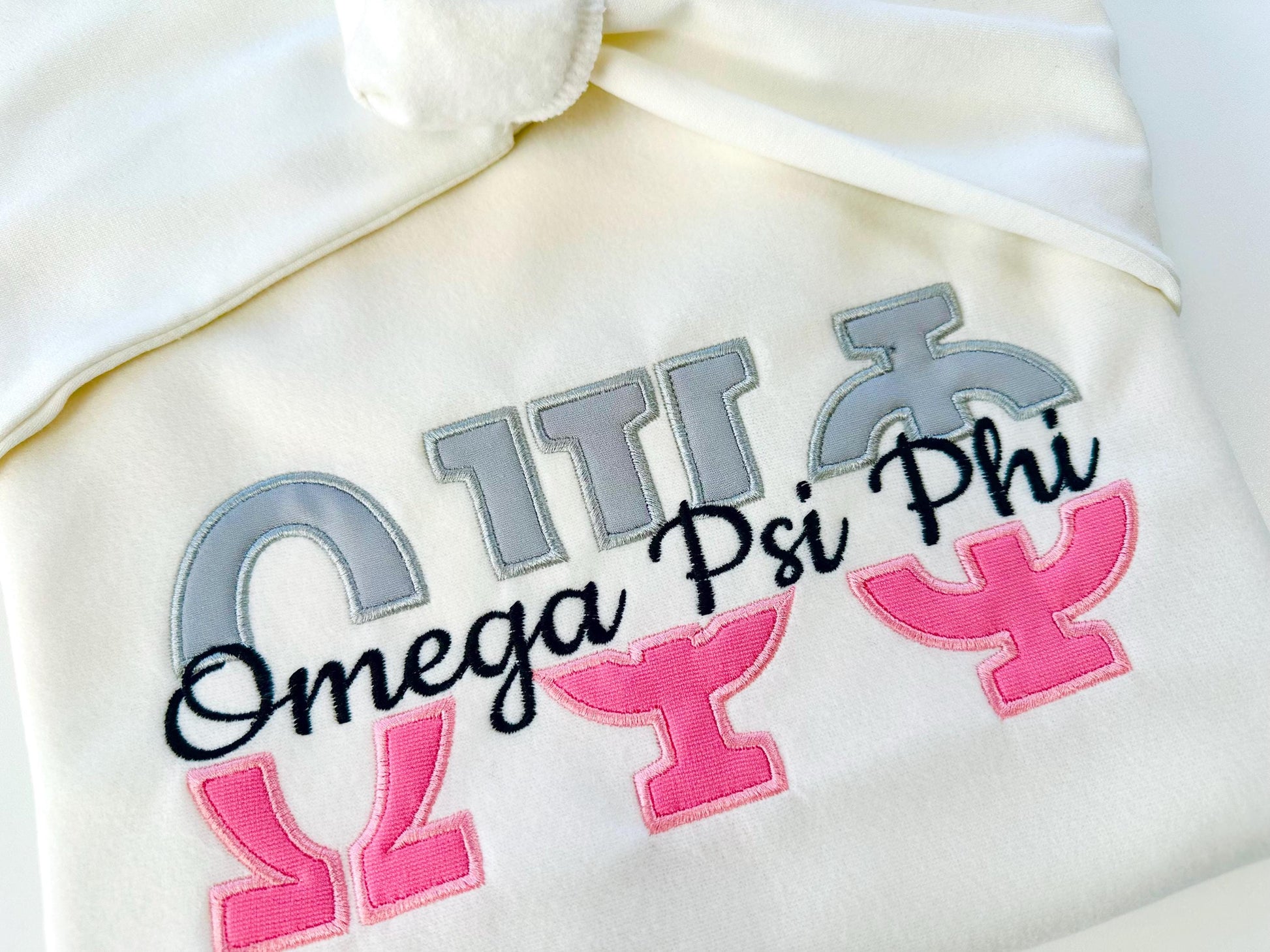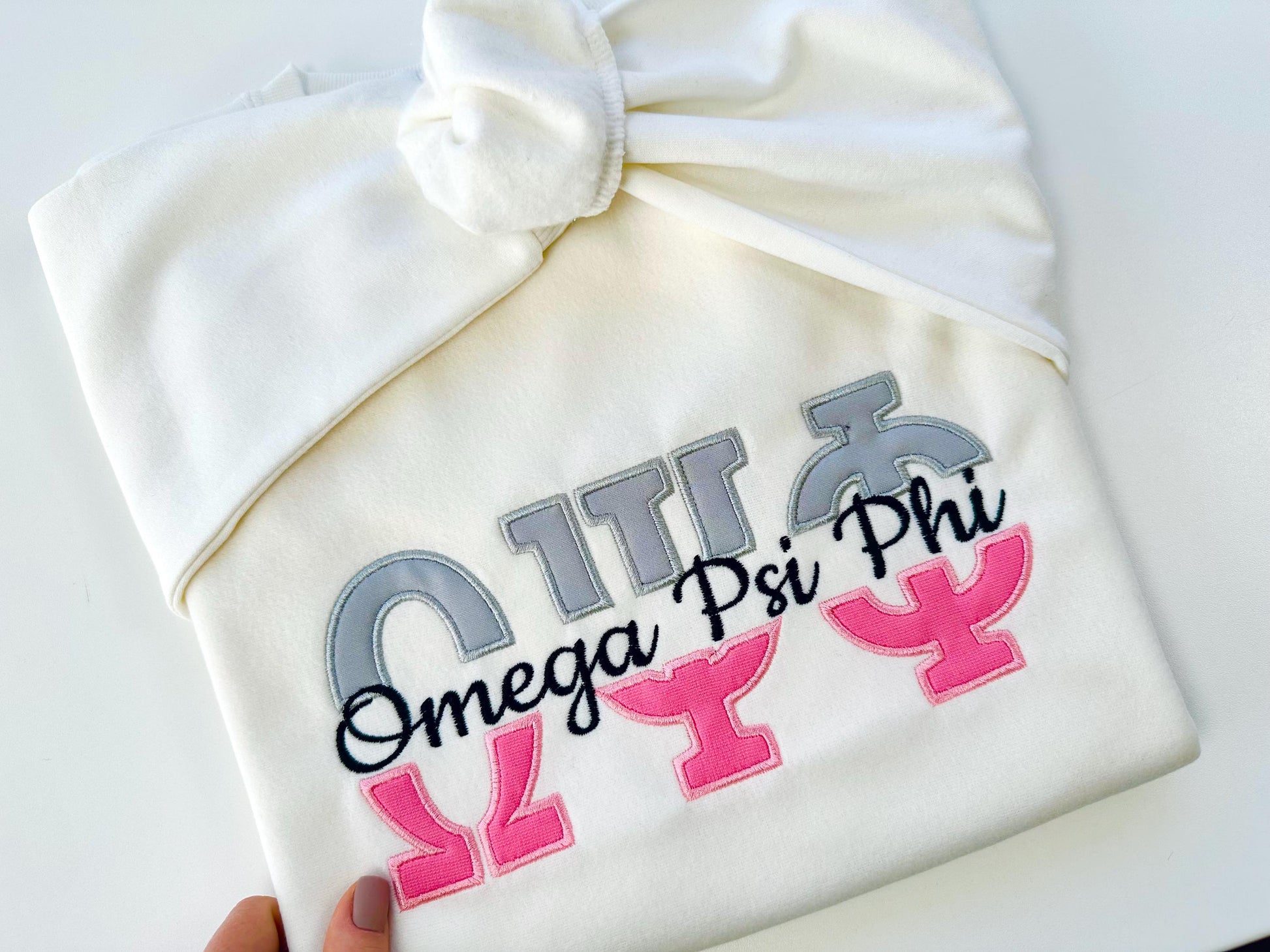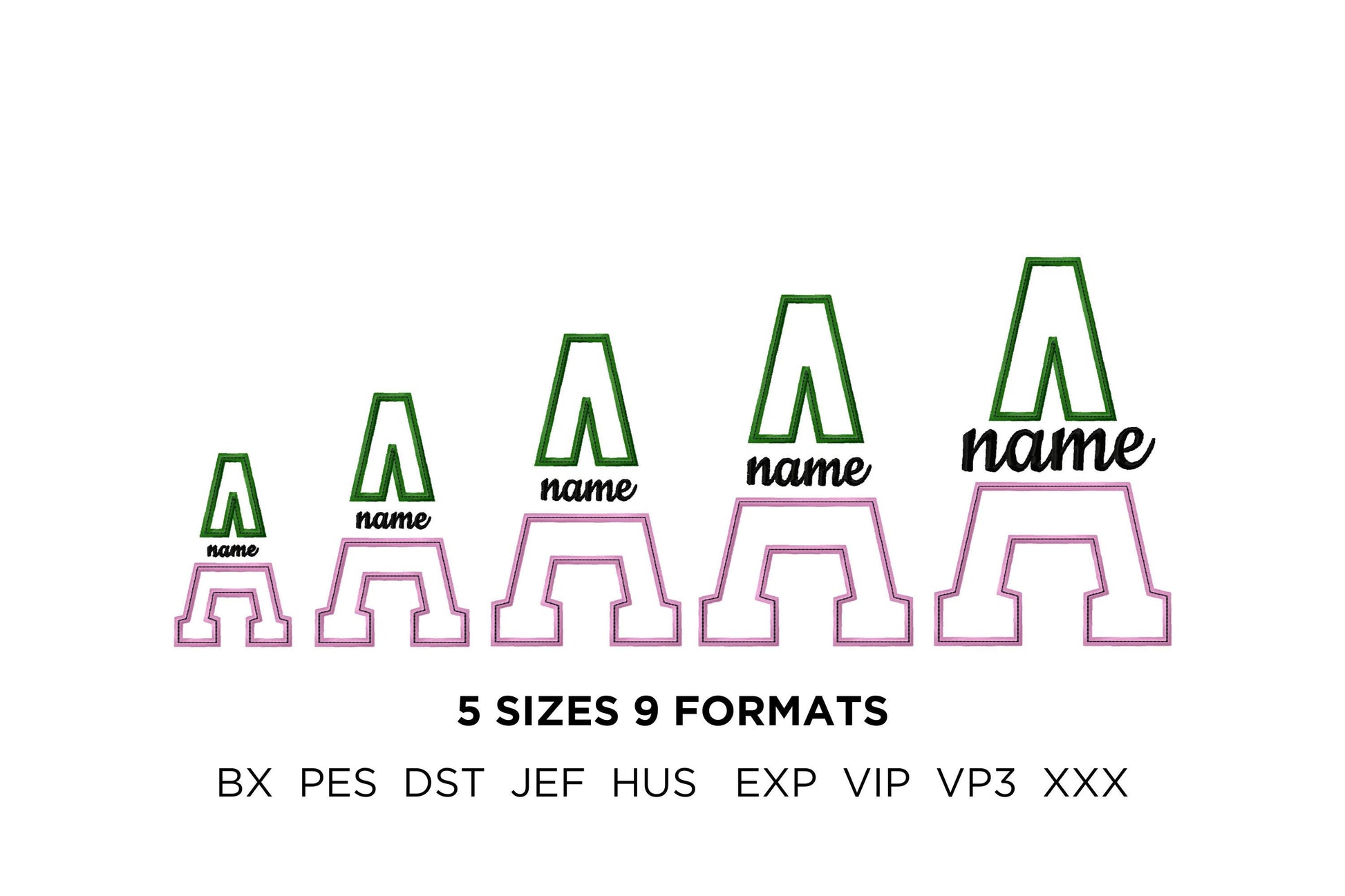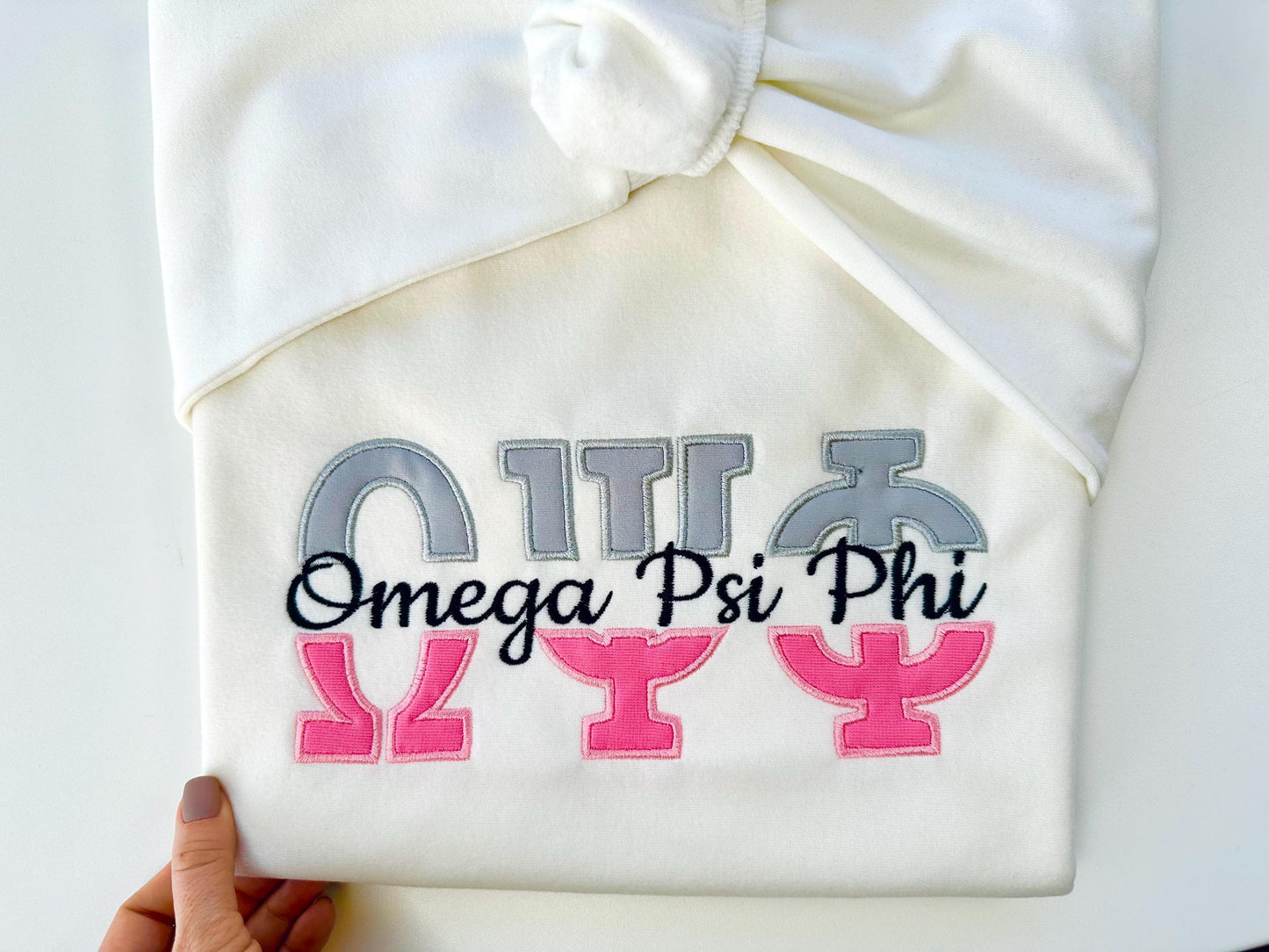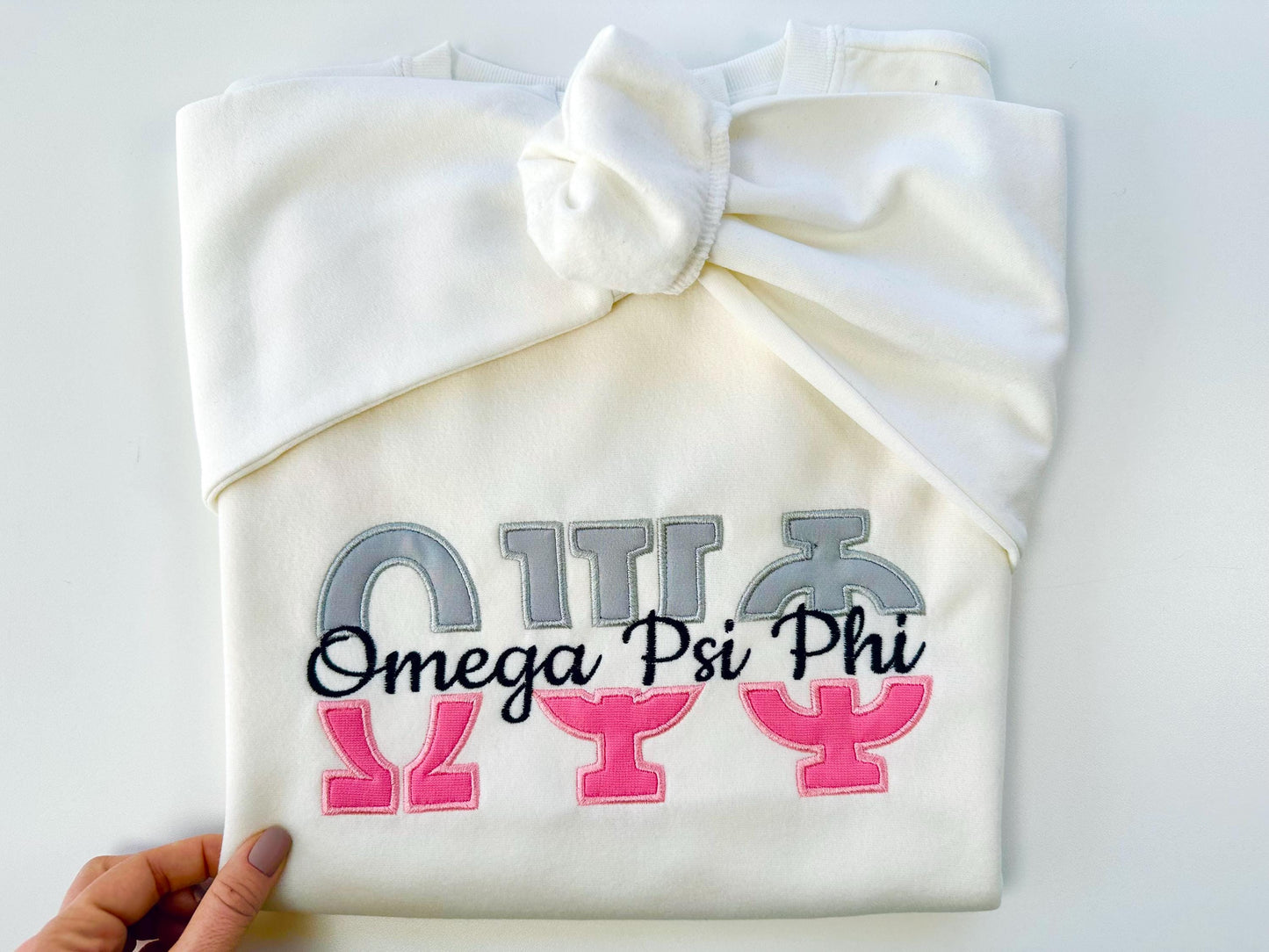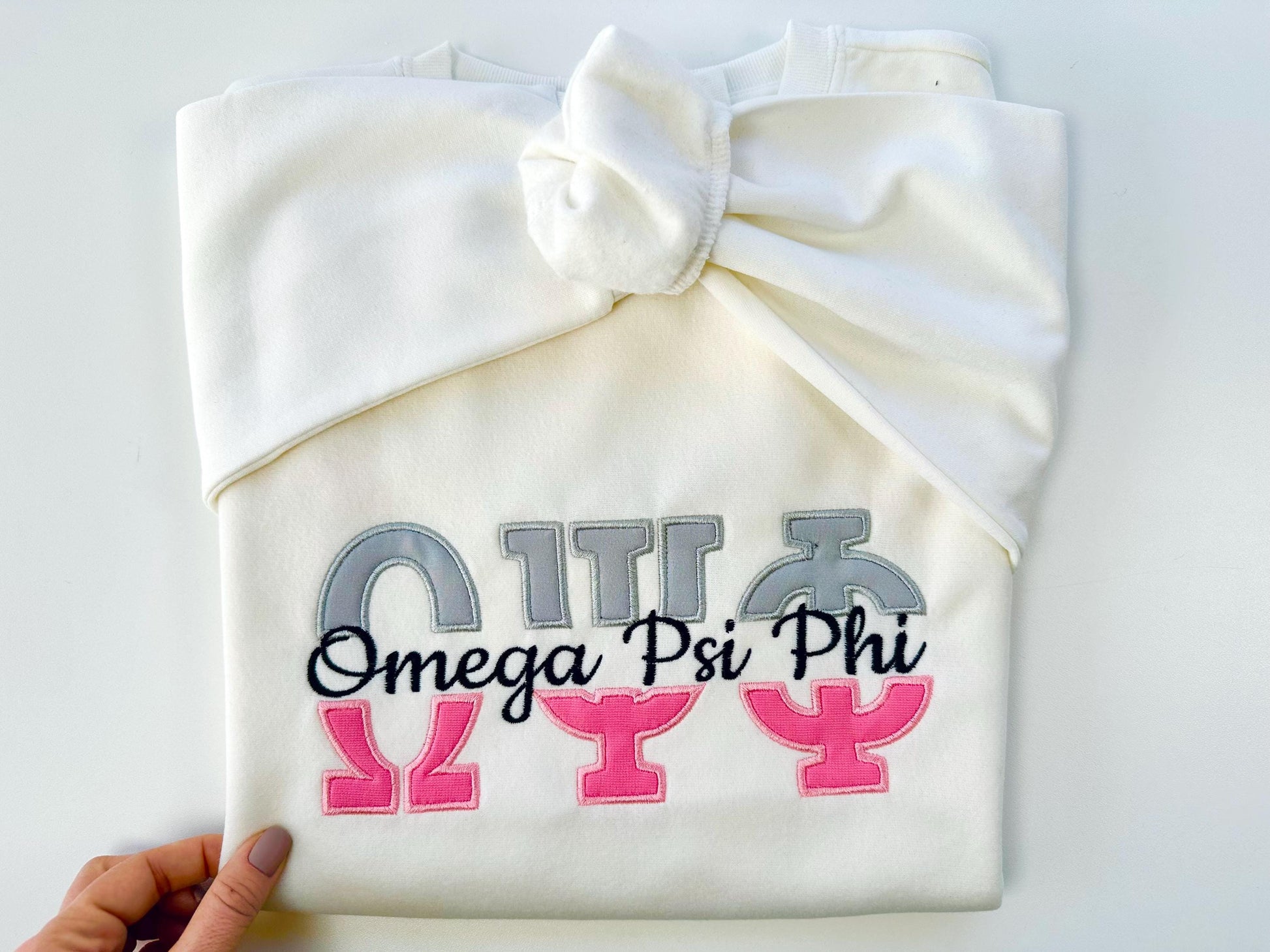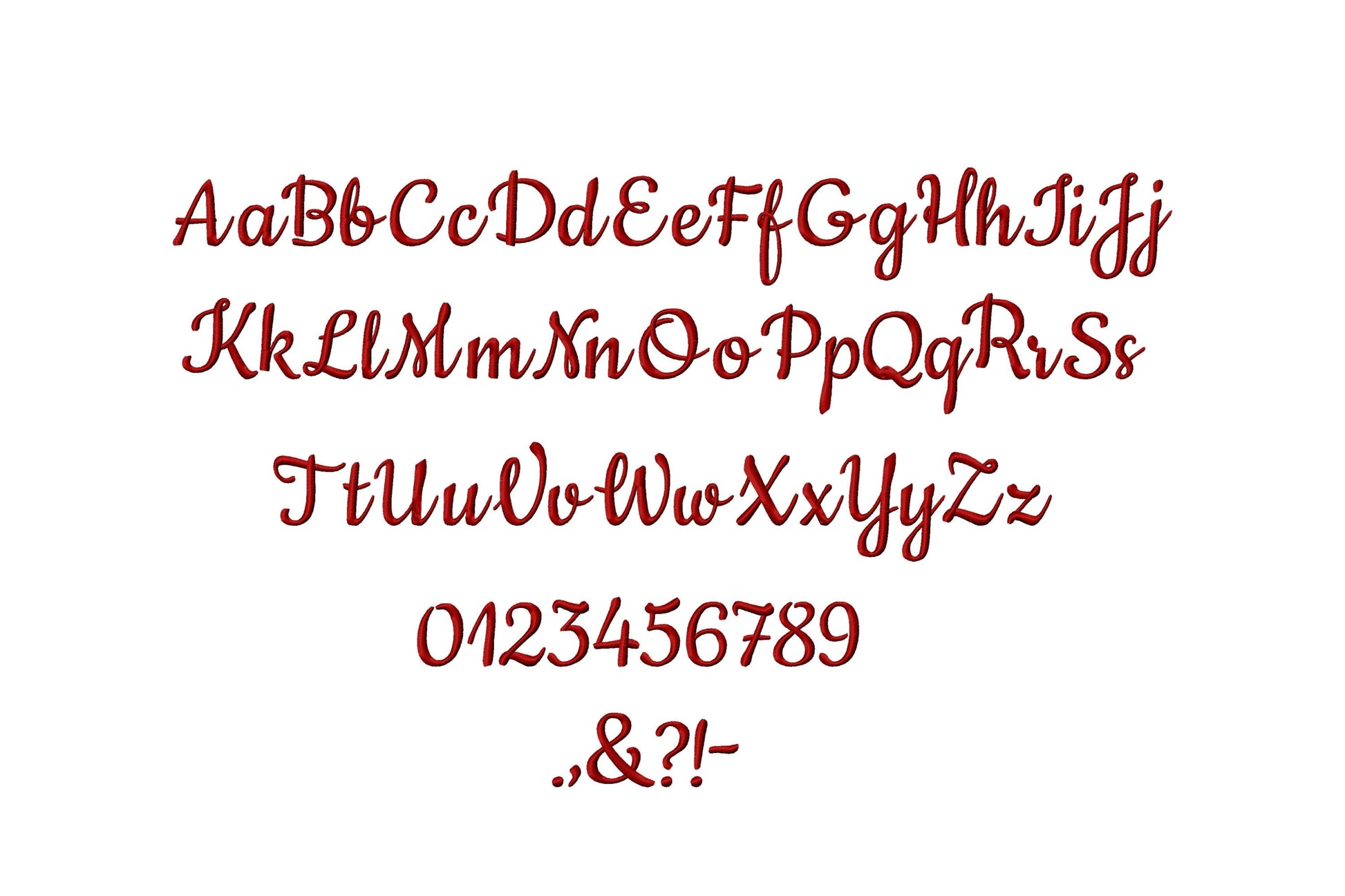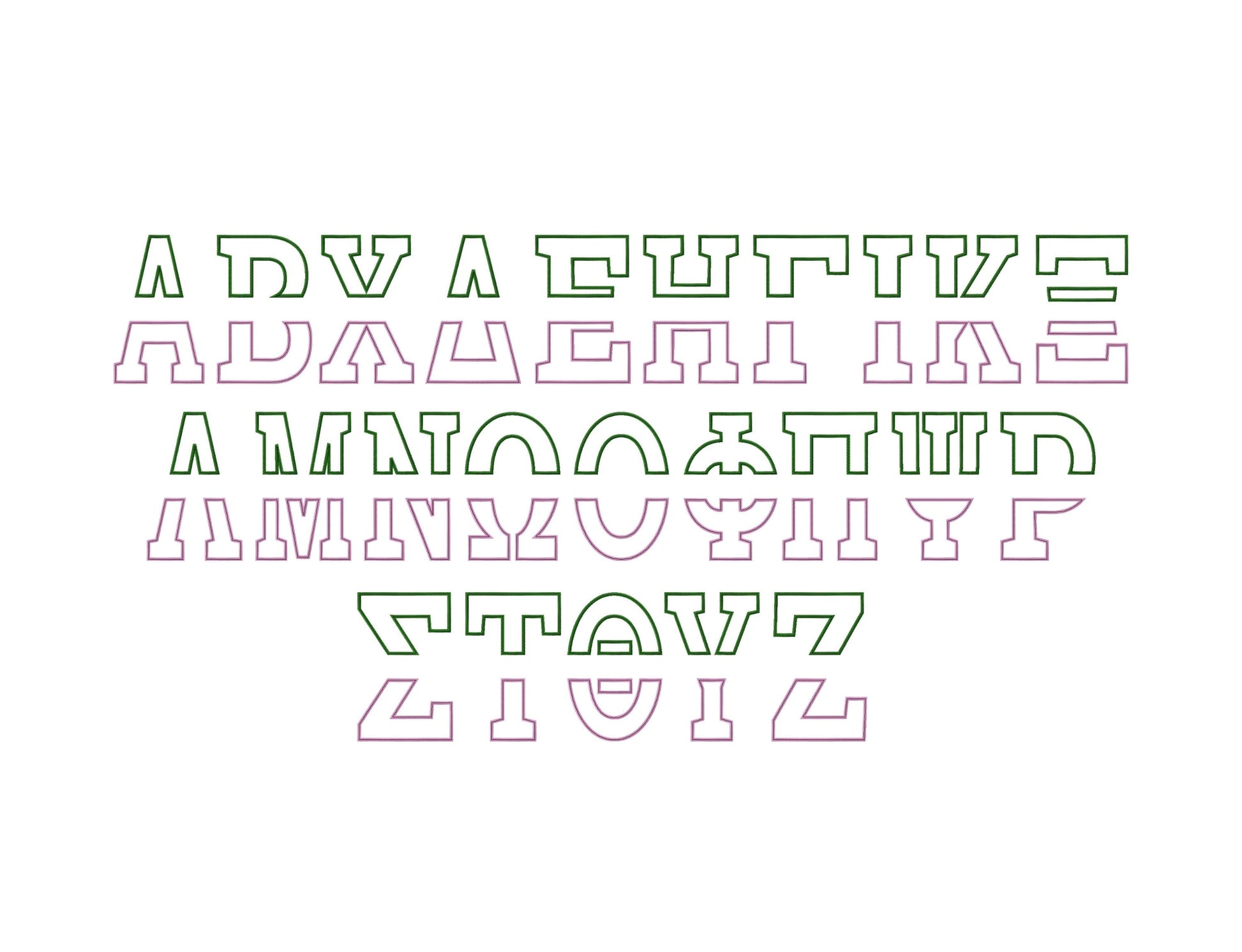
Or click to open the linkA set of two fonts: big split Greek applique letters and a small satin stitch script. Made for sorority and fraternity shirts, jackets, bags and pillows.
The split Greek font has uppercase Greek letters in five sizes: 4, 5, 6, 7 and 8 inches; the top and bottom are separate, so you can set the gap in the middle. The mini satin script has uppercase and lowercase letters, numbers and punctuation in seven sizes: 0.4, 0.6, 0.8, 1.5, 1.8, 2.4 and 2.8 inches.